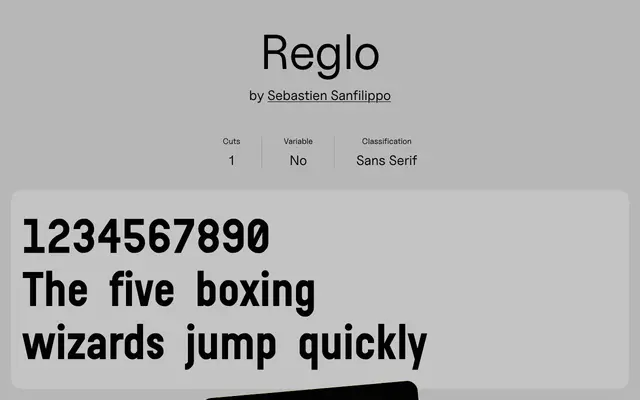
Reglo
A single-cut sans-serif by Sebastien Sanfilippo, released under the SIL Open Font License for free commercial and personal use.
Reglo is a sans-serif typeface by Sebastien Sanfilippo, available in one cut with no variable font axis. Released under the SIL Open Font License 1.1, it permits commercial use, modification and redistribution with some conditions. Its minimal offering makes it best suited to projects needing a clean, no-frills sans at no cost.
Listed under Sans Serif by the foundry; with a single cut and no variable axis information, it reads as a straightforward grotesque or geometric sans.